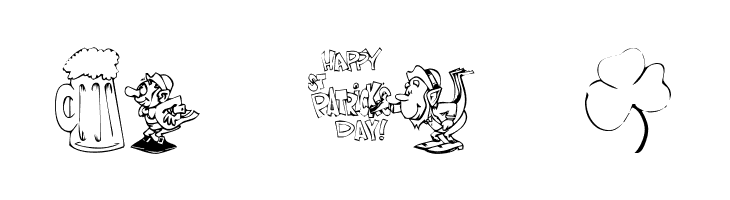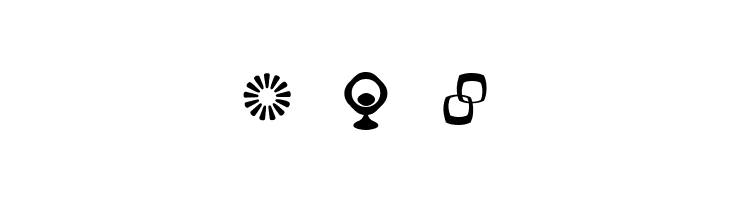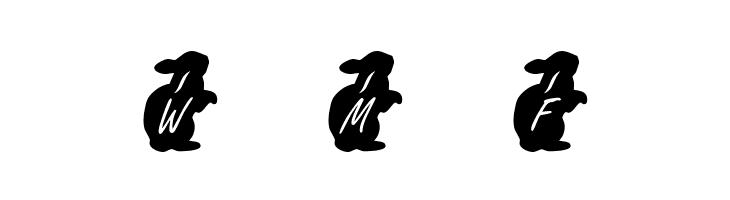
A decorative font with Christmas-themed illustrations replacing letters and numbers.
A Halloween-themed decorative font with spooky icons.
Holiday-themed bear illustrations as font glyphs.
A decorative font with Christmas-themed illustrations.
A decorative dingbat font with moon and night sky icons.
A decorative font with Christmas-themed illustrations replacing standard characters.
Irish-themed decorative dingbat font with playful illustrations.
A bold, geometric font with a modern and minimalistic design.
A bold, geometric font with clean lines and a modern aesthetic.
Decorative icon font with retro-futuristic and space motifs.
A whimsical font with letters inside rabbit silhouettes, perfect for Easter themes.
A playful, bone-themed font perfect for pirate or Halloween designs.
A decorative font with spider motifs, ideal for Halloween themes.
A modern, clean, and slightly italic font with medium weight and excellent readability.
A modern, italic sans-serif font with medium weight and balanced proportions.
A clean, modern sans-serif typeface with balanced proportions and medium weight.
A collection of bold, 1980s-themed icons and graphics.
A modern, slightly italicized font with a sleek and professional appearance.
A modern, medium-weight sans-serif font with a clean and versatile design.
A decorative sports icon font with hand-drawn pictograms for each character.
A modern, italic sans-serif font with medium weight and balanced proportions.
A bold, outlined serif font with a classic yet artistic style.
A bold, framed font with geometric, monospaced characters.
A decorative Halloween-themed font with playful and spooky illustrations.
A pictogram font with peace and remembrance-themed illustrations.
Ornate heraldic shields with detailed line illustrations as characters.
A playful, sheep-themed decorative font with characters embedded in cartoon sheep illustrations.
A playful Halloween-themed font with witch silhouettes and bold letters.